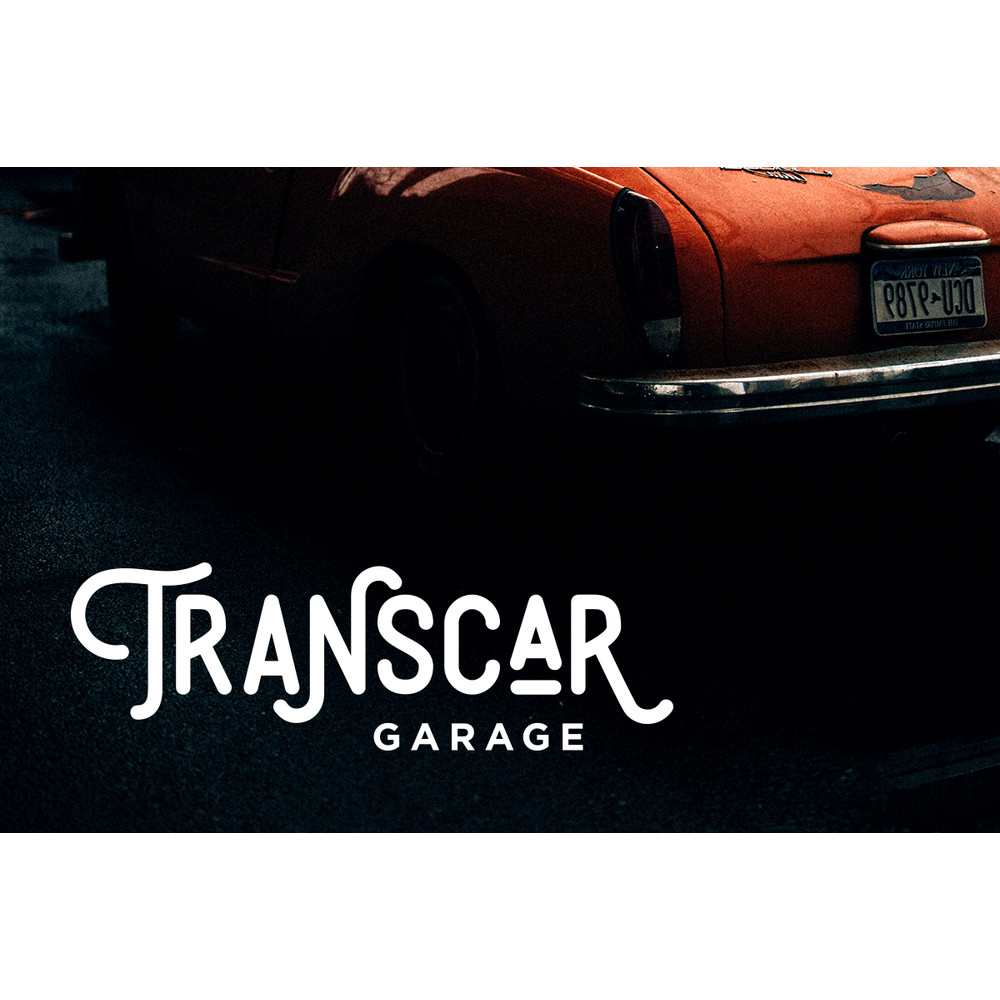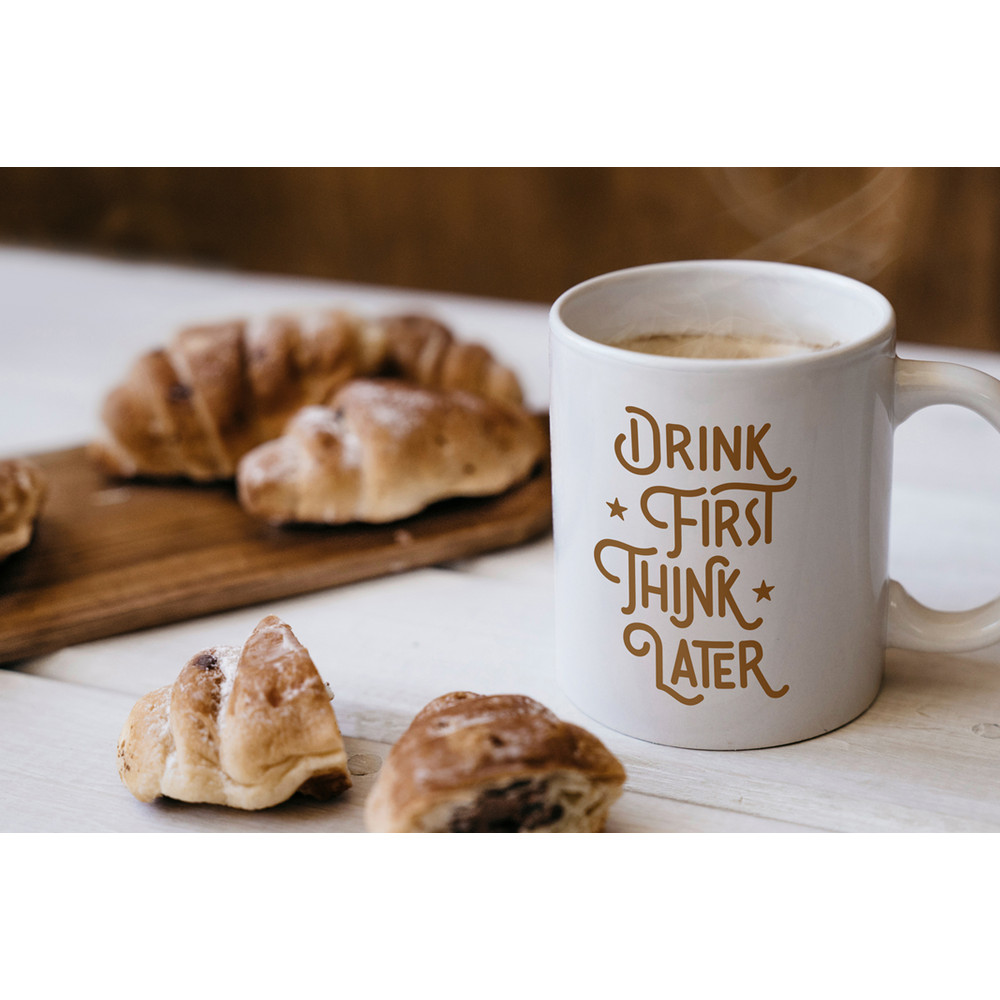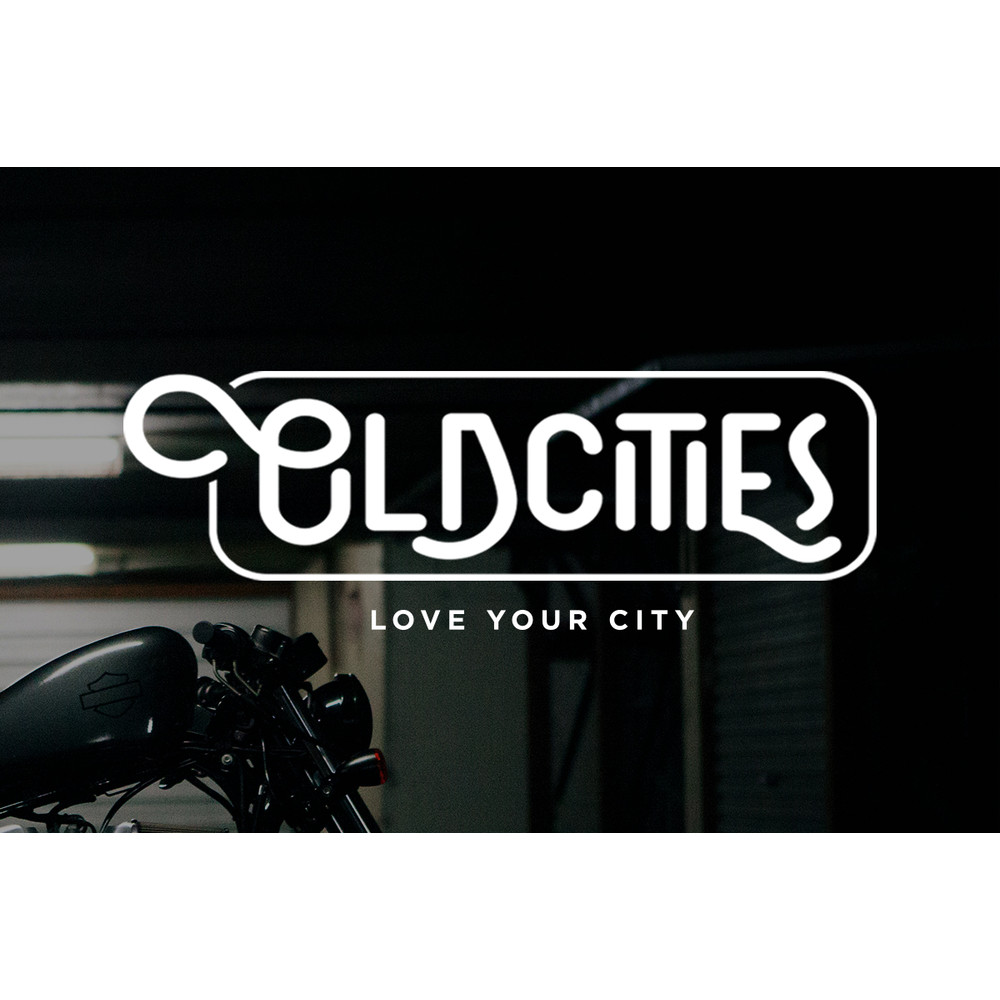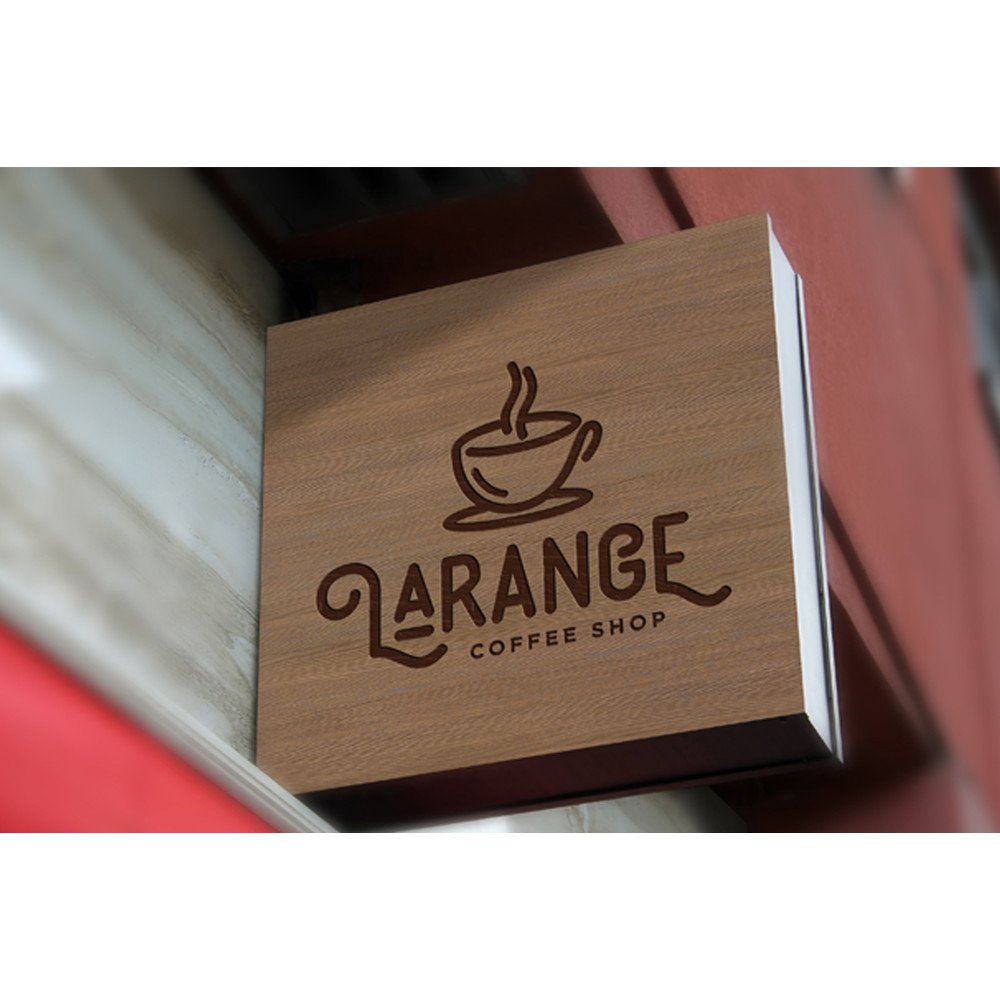
Brotherhood – Monoline Display Trending Fonts - Digital Font
Brotherhood is monoline display sans font. This font suitable many project, like logo, lettering, quote, apparel, fashion, photography, watermark and many more!.
This font has many alternate glyphs and ligature of type could help you make a stylish design, and alternate character could bring a good display. Each glyph made manually one by one with very diligent and consistency.
Features :
Uppercase
Lowercase
Numerals & Punctuations
Accents (Multilingual characters)
Ligature and Alternate